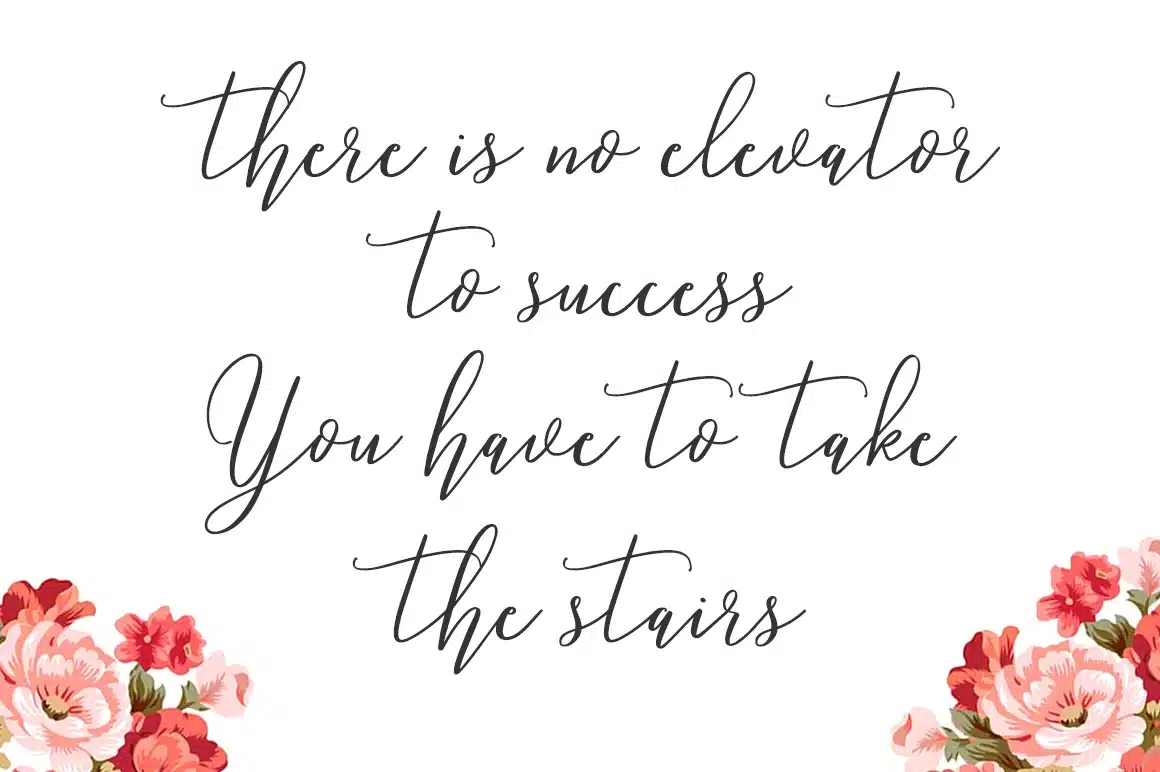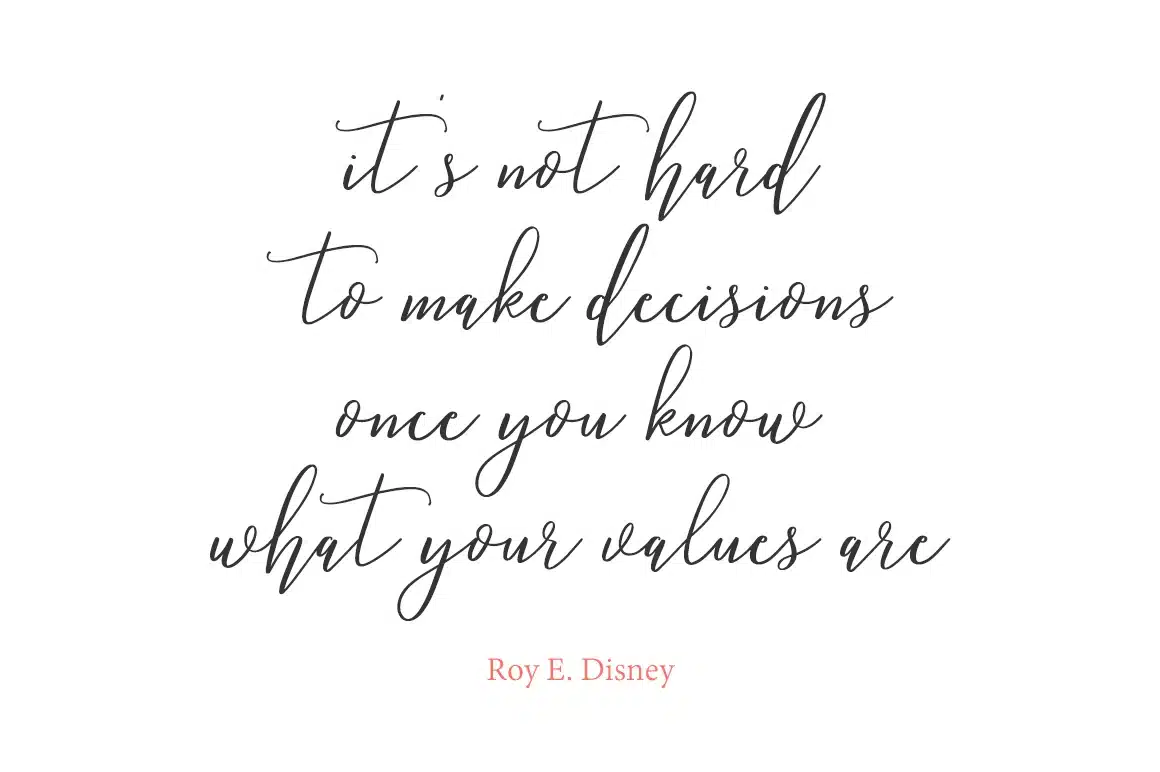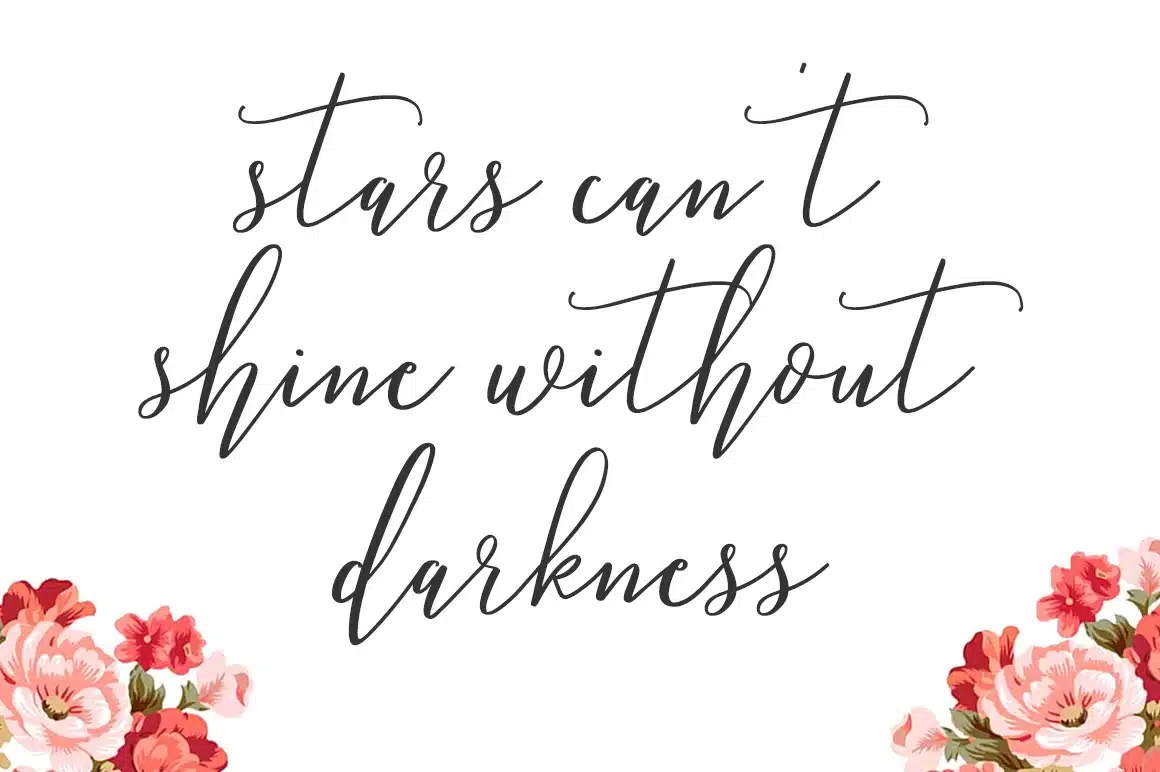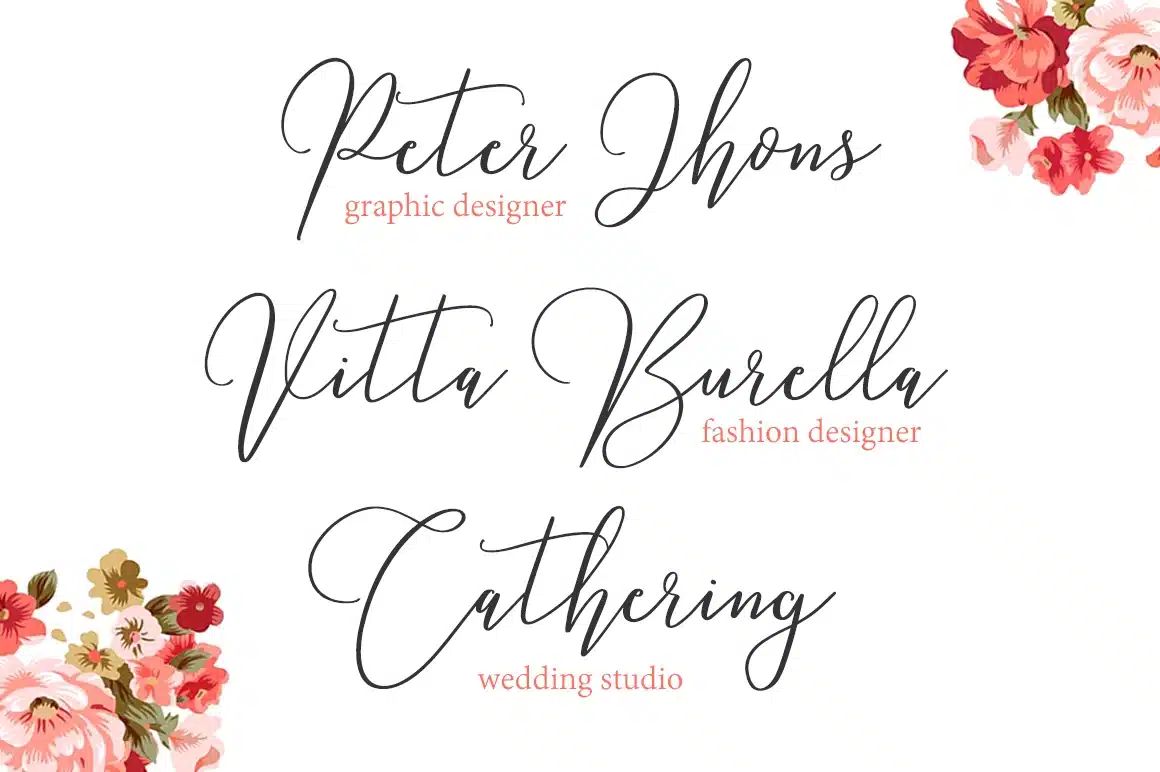
Love Hewits Typeface Font
Give your designs an authentic handcrafted feel. “Love Hewits Typeface” is perfectly suited to stationery, logos and much more.